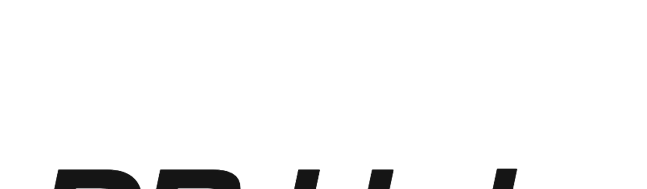
Exploring the Features of the db-helvethaica-x Font
DB Helvethaica X is a bold, futuristic Thai–Latin display typeface designed by Prinya Rojarayanont. It combines the clean, geometric feel of grotesk sans-serifs with sharp, condensed letterforms that give it a distinctly modern, techy personality. Widely used in Thai graphic design, packaging, and headlines, the font supports both Roman and Thai scripts, making it ideal for bilingual branding where you want a strong, high-impact look that still feels streamlined and contemporary.